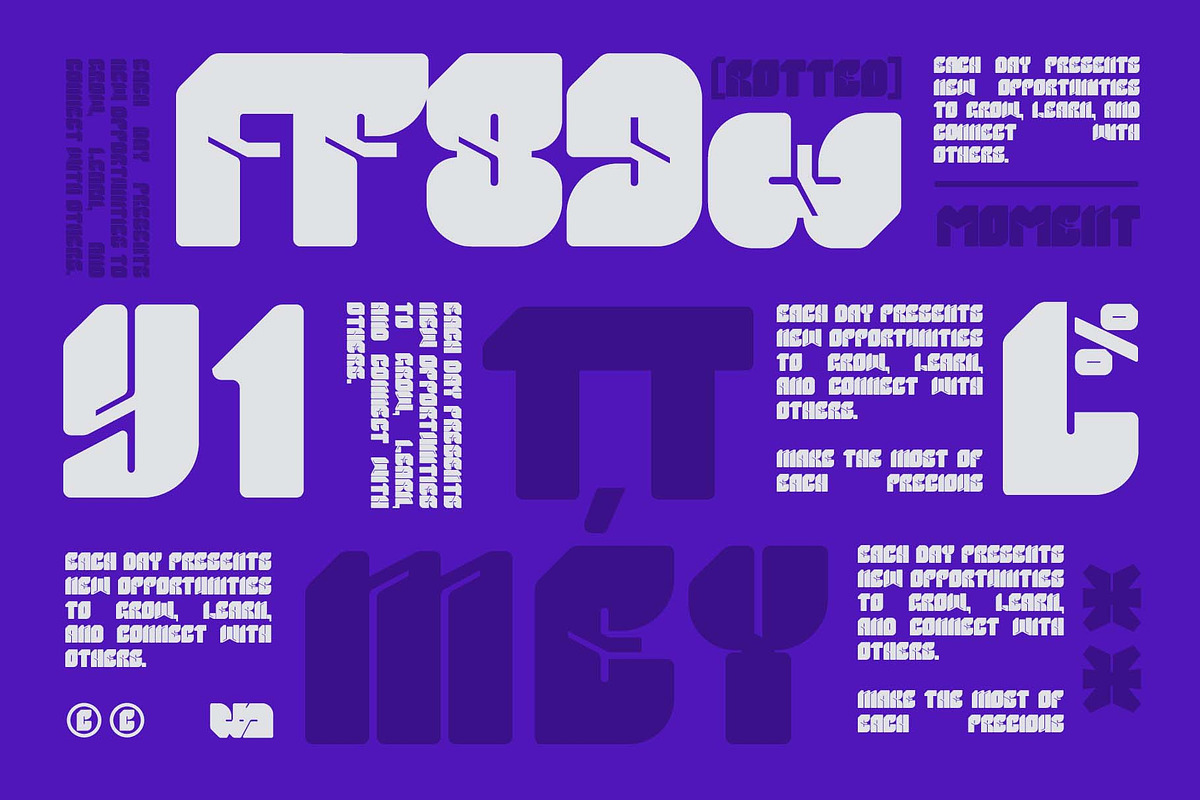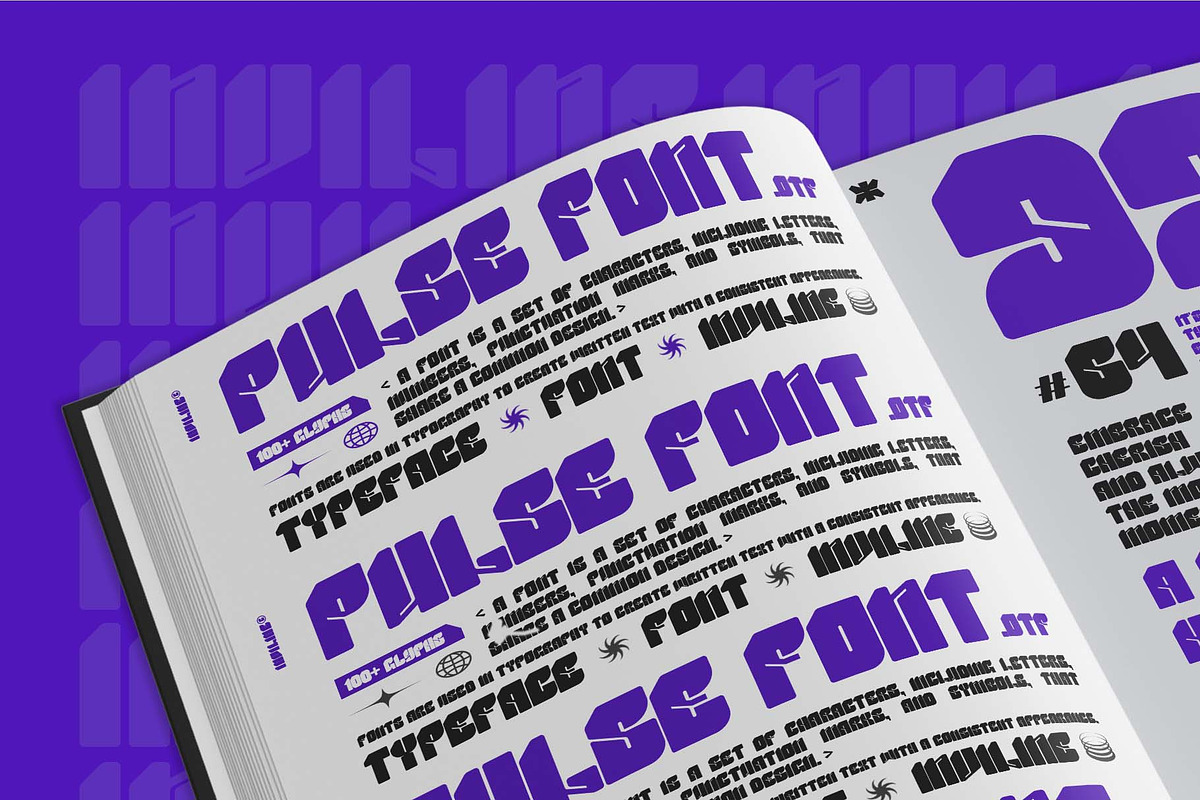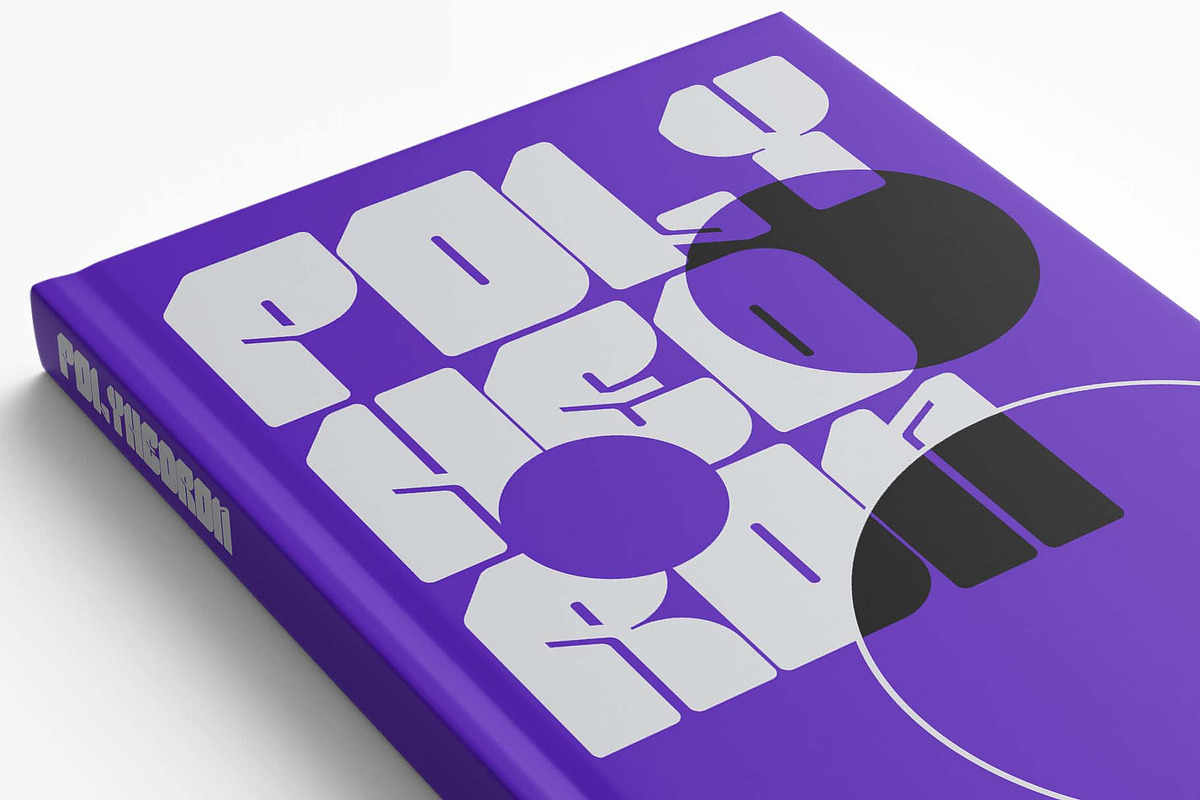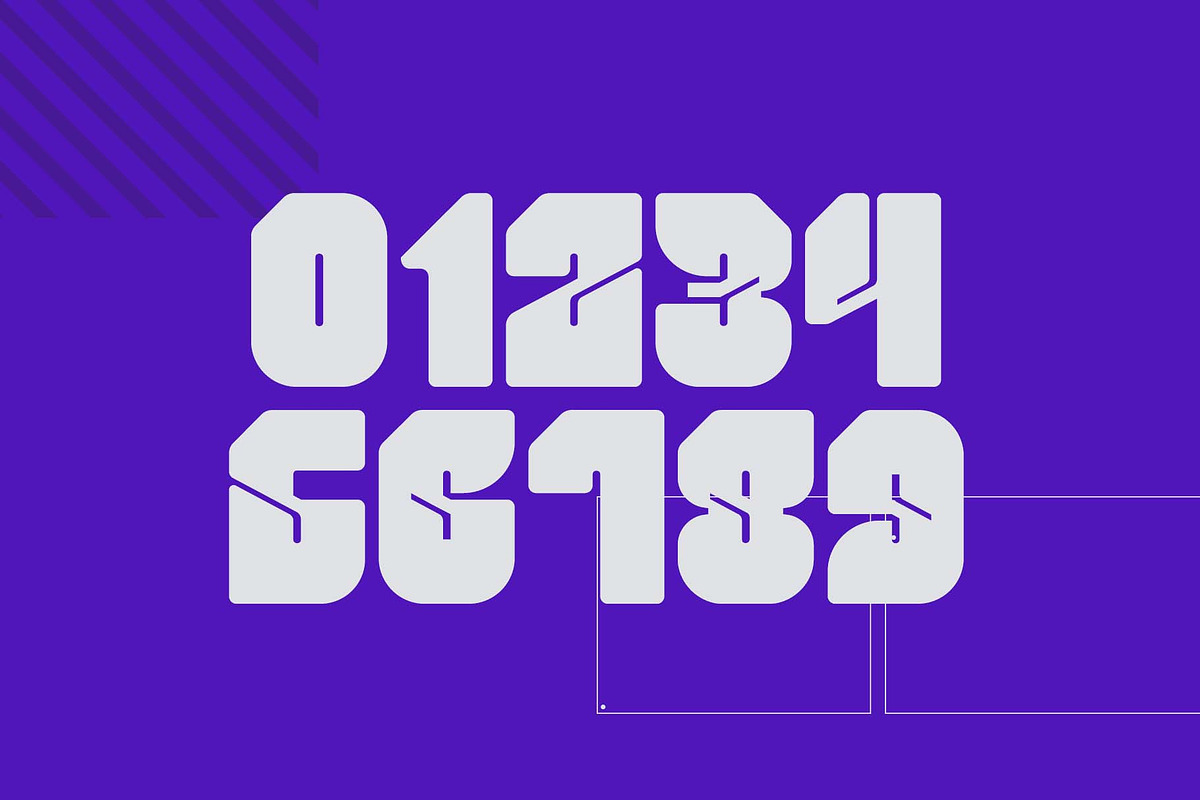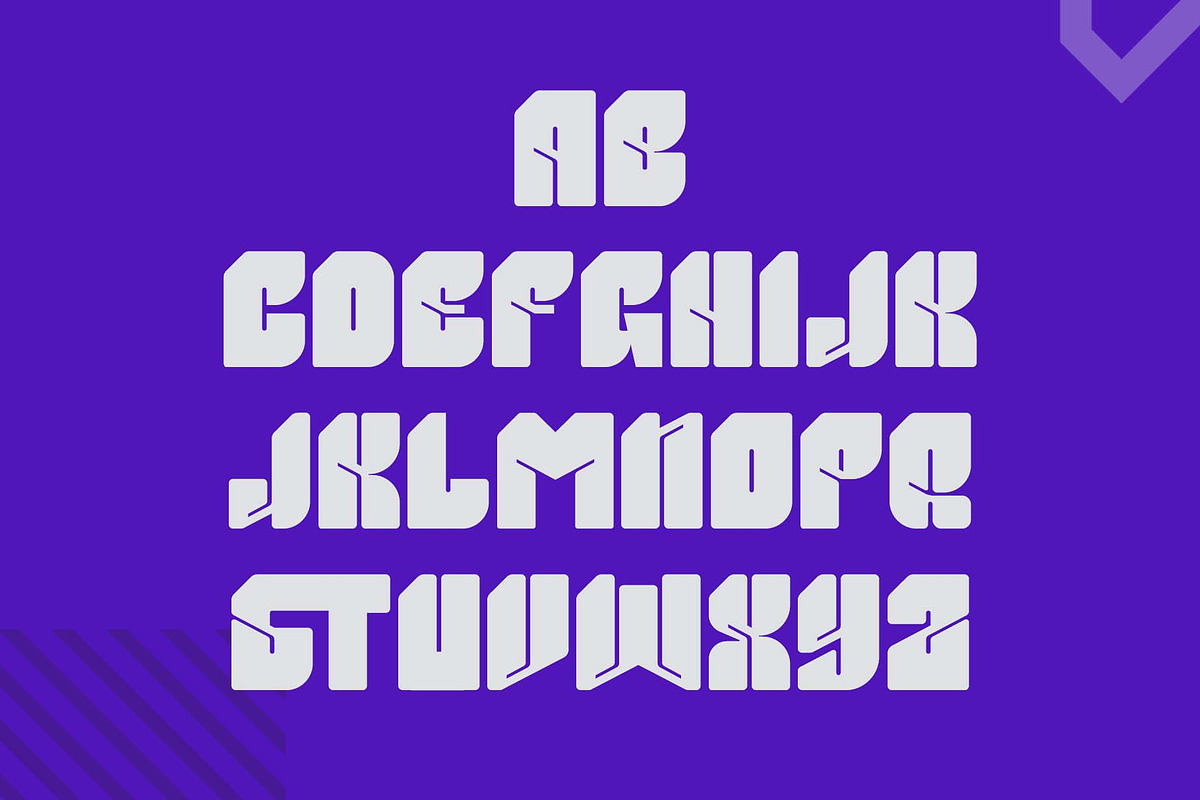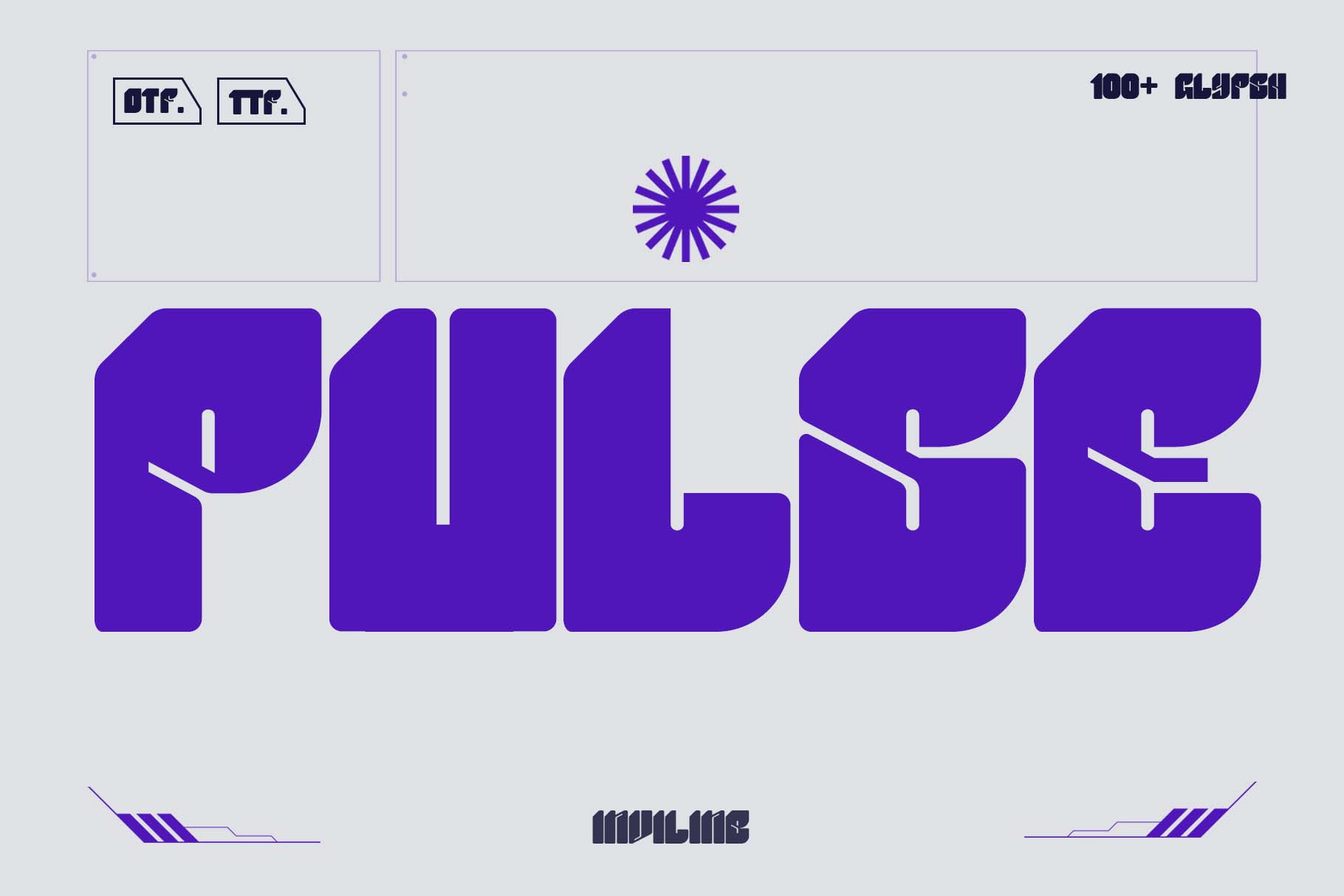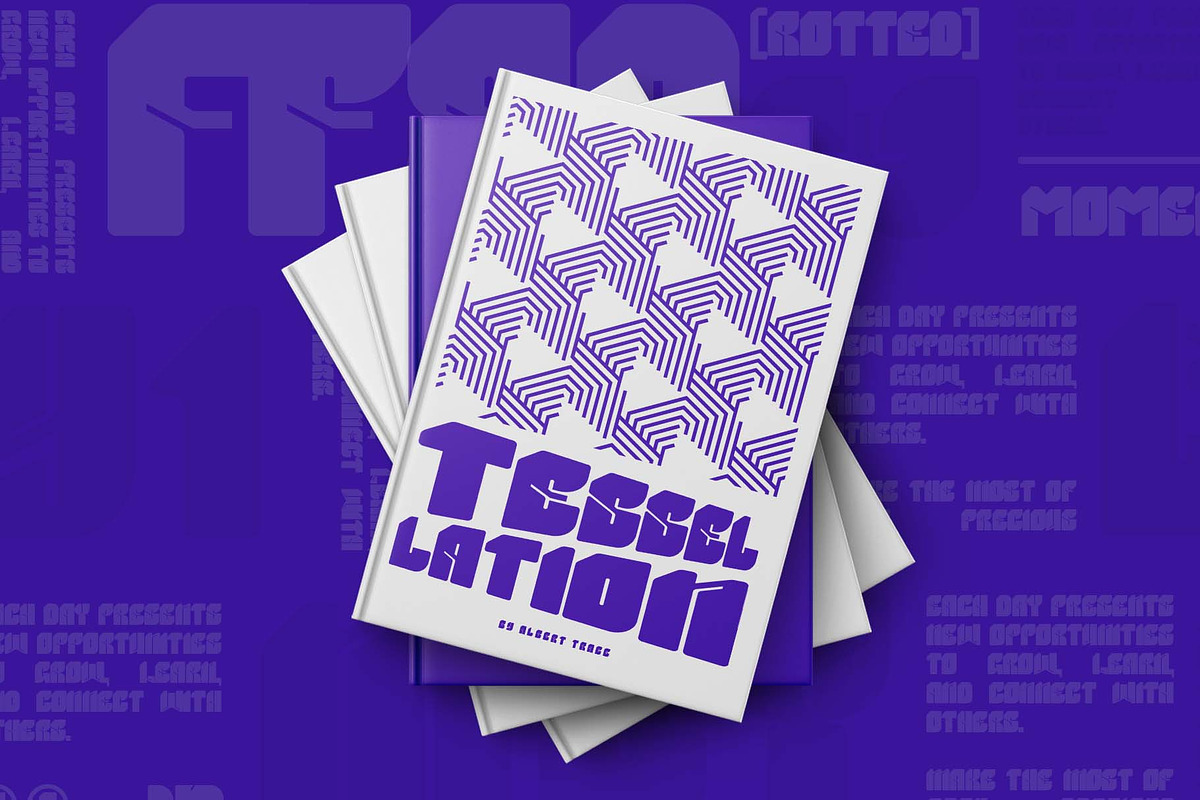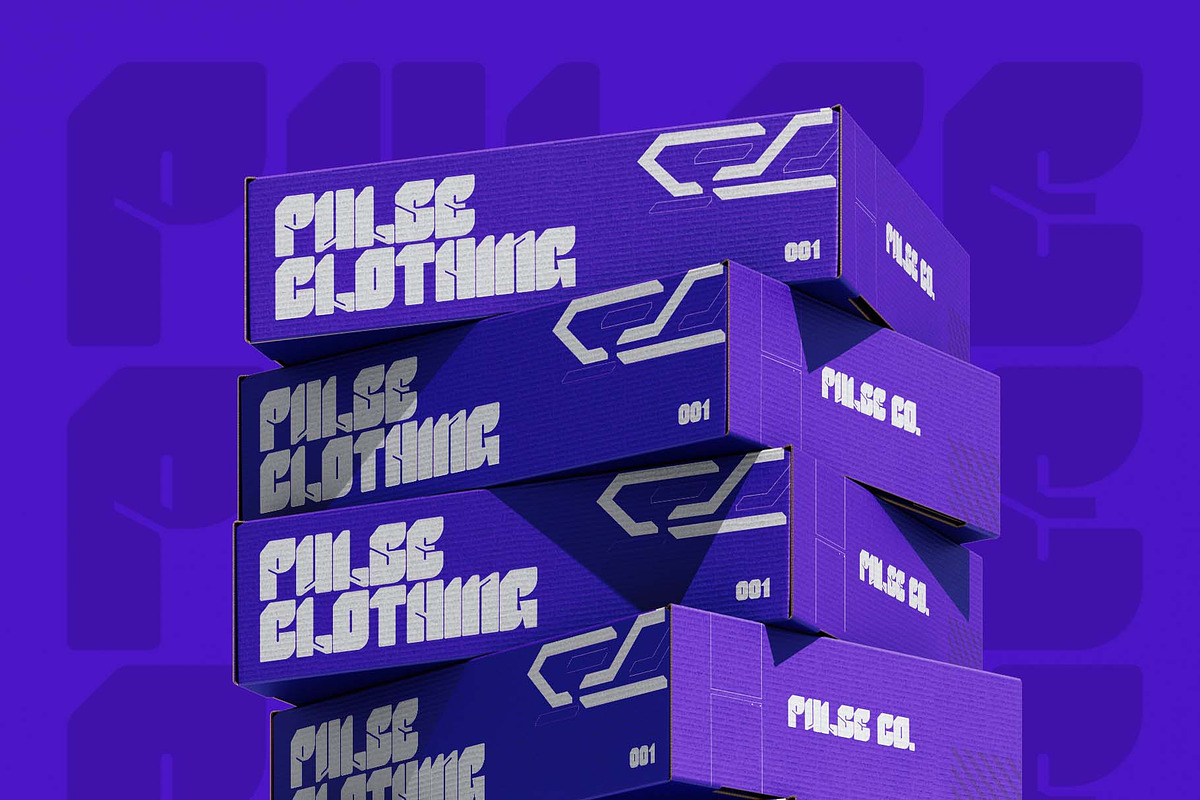
Pulse - Y2K Display Font
Pulse is a bold Y2K display typeface inspired by futuristic interfaces, retro-digital graphics, cyber aesthetics, gaming culture, and experimental typography from the early 2000s.
Its chunky geometric structure, sharp cutouts, and modular letterforms create a strong visual identity that feels technological, energetic, and highly recognizable. Pulse is designed for projects that need attention-grabbing typography with a futuristic retro character.
Pulse combines heavy geometric construction with unconventional cuts and angular details. Its wide, compact characters are designed primarily for display applications where typography becomes the main visual element.
The font works especially well for technology branding, game titles, music posters, digital campaigns, streetwear graphics, futuristic packaging, and experimental editorial layouts.
With 100+ glyphs, uppercase characters, numerals, and punctuation, Pulse provides a practical character set for creating bold titles, logos, short statements, and contemporary digital compositions.
Futuristic Y2K display style
Bold geometric construction
Modular and experimental letterforms
Sharp cuts and angular details
Heavy, high-impact visual character
Strong readability at medium and large display sizes
Ideal for logos, headlines, titles, and short phrases
Works beautifully with cyber, gaming, tech, and retro-futuristic visuals
Suitable for layered, outlined, chrome, gradient, and 3D treatments
Easy to pair with monospace and minimalist sans serif fonts
Y2K branding
Futuristic logo design
Technology branding
Gaming titles
Esports graphics
Cyber-themed posters
Electronic music artwork
Album covers
Festival identities
Streetwear branding
Digital campaigns
Website hero titles
App graphics
Social media posts
YouTube thumbnails
Product packaging
Beverage labels
Poster typography
Editorial headlines
Exhibition graphics
Motion graphics titles
Sci-fi projects
Event branding
Merchandise graphics
Experimental visual identities
Use Pulse at medium or large sizes to showcase its geometric cuts and bold modular forms. It works best for logos, headlines, posters, game titles, product names, and short promotional text rather than long paragraphs.
Combine it with neon colors, chrome effects, gradients, grid systems, dark backgrounds, and futuristic interface graphics to strengthen its Y2K character.
Pair Pulse with a clean monospace or minimalist sans serif font for captions, descriptions, dates, and supporting information.